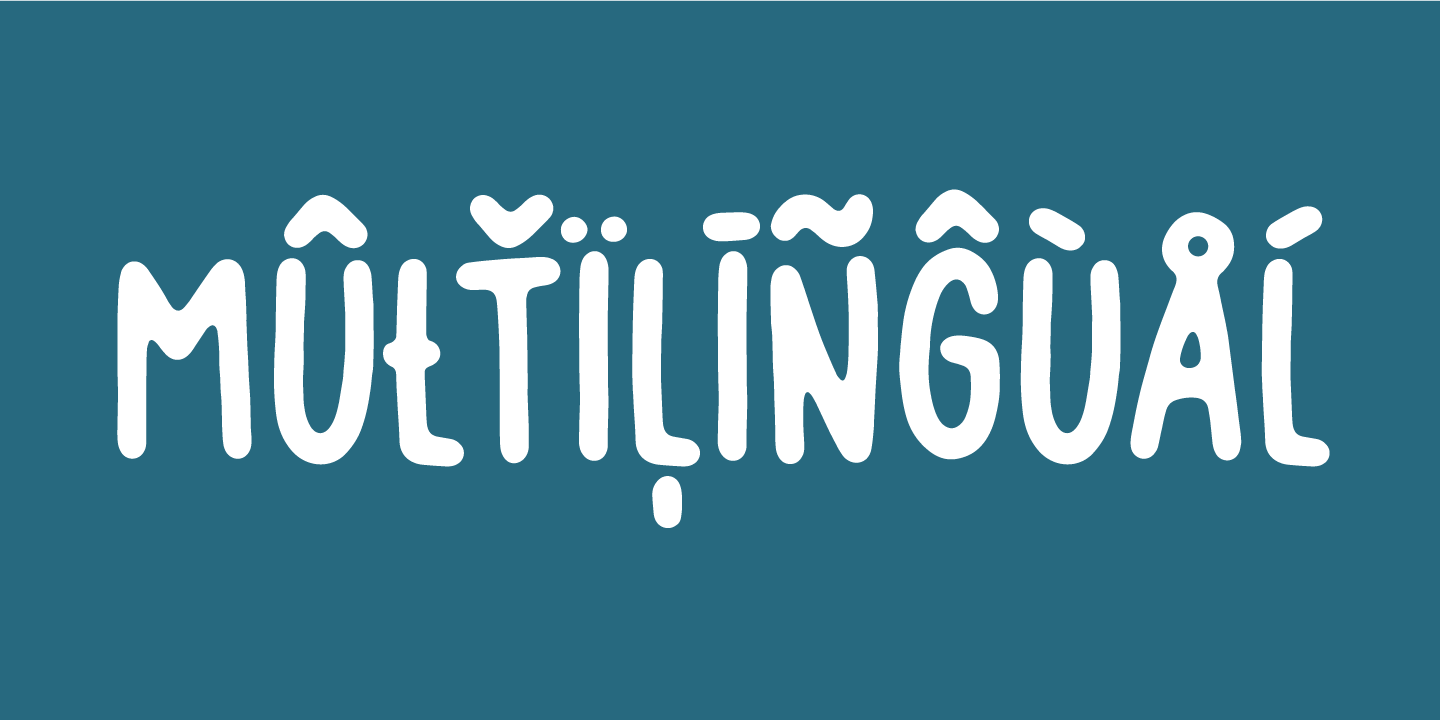
Festabe Font is a joyful and vibrant typeface, perfectly suited for projects that aim to capture a spirit of celebration, festivity, and playful energy. Imagine it gracing the invitations for a lively birthday party, adding a cheerful and dynamic touch to holiday marketing materials, or bringing a whimsical personality to children's event posters. It's also an excellent choice for crafting engaging social media graphics, designing unique labels for celebratory products, or infusing blog headers and personal projects with a sense of genuine fun and excitement. If you're looking to convey cheerfulness, enthusiasm, and an undeniable sense of everyday celebration, Festabe Font is an absolutely delightful selection.
What makes Festabe Font so exciting? It’s its unique ability to blend a casual, often bubbly or handcrafted aesthetic with impressive legibility, making it both visually appealing and highly practical for diverse applications. This font often features soft, rounded forms, playful bounces, or a friendly, unpretentious charm that gives it an immediate sense of warmth and accessibility. Despite its informal character, Festabe Font is meticulously designed to maintain excellent readability, ensuring your message is communicated clearly and with a warm, inviting tone. Designers will appreciate its versatility in creating designs that feel both intimately personal and professionally charming, making it a go-to choice for brands and projects that aim to connect with their audience through themes of joy, simplicity, and a welcoming atmosphere.
The Festabe Font family is typically designed to showcase a singular, distinctive display or script style that perfectly encapsulates its unique appeal. While it may not feature extensive weight variations like a traditional text font, its strength lies in its inherent personality and often includes stylistic alternates or simple ligatures that enhance its cheerful aesthetic. These subtle details allow Festabe Font to maintain its cohesive and heartwarming look across various applications, from inviting e-commerce banners for festive goods to charming personal correspondence. Discover the delightful possibilities with Festabe Font Free Download and infuse your designs with an irresistible, joyful everyday charm.